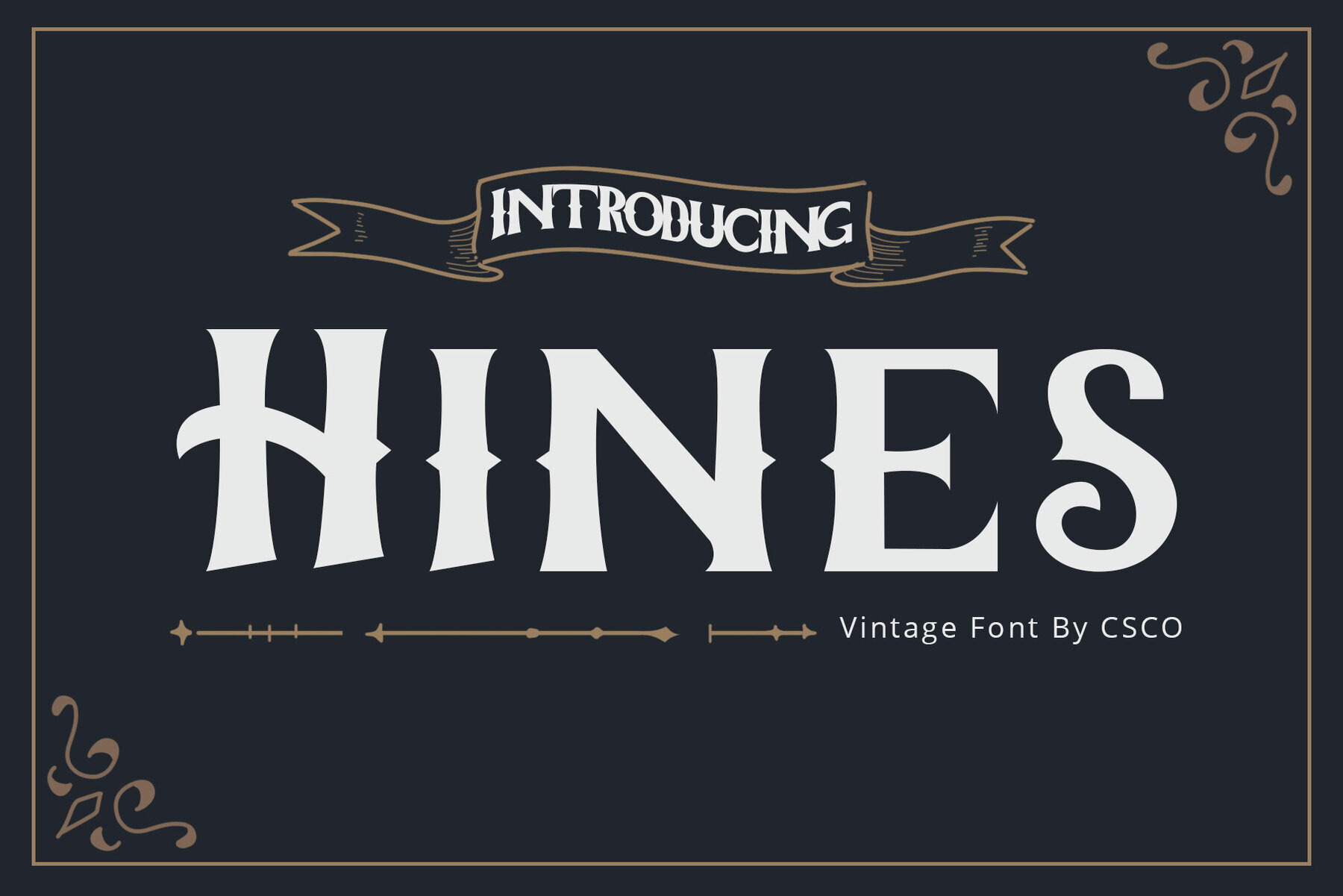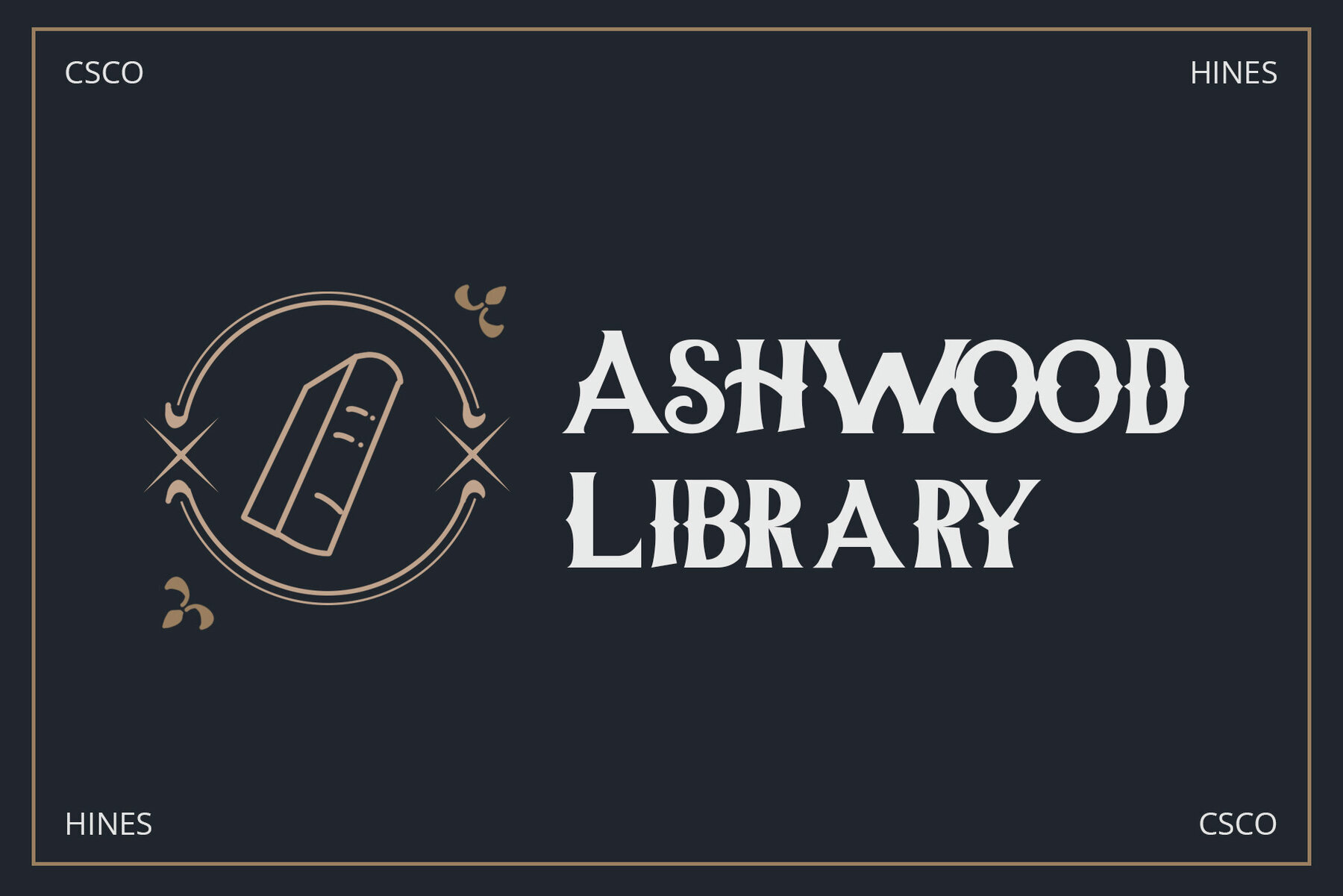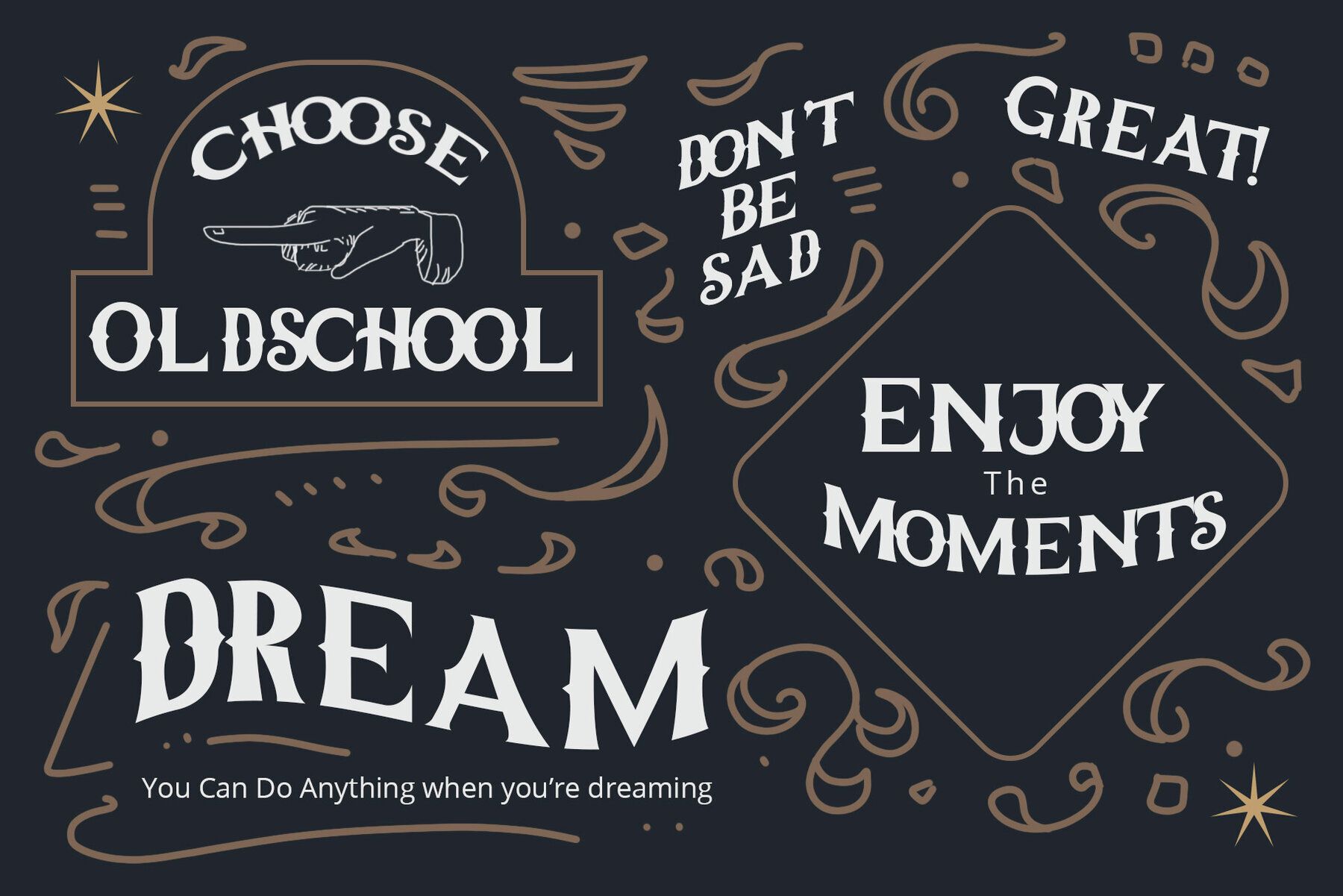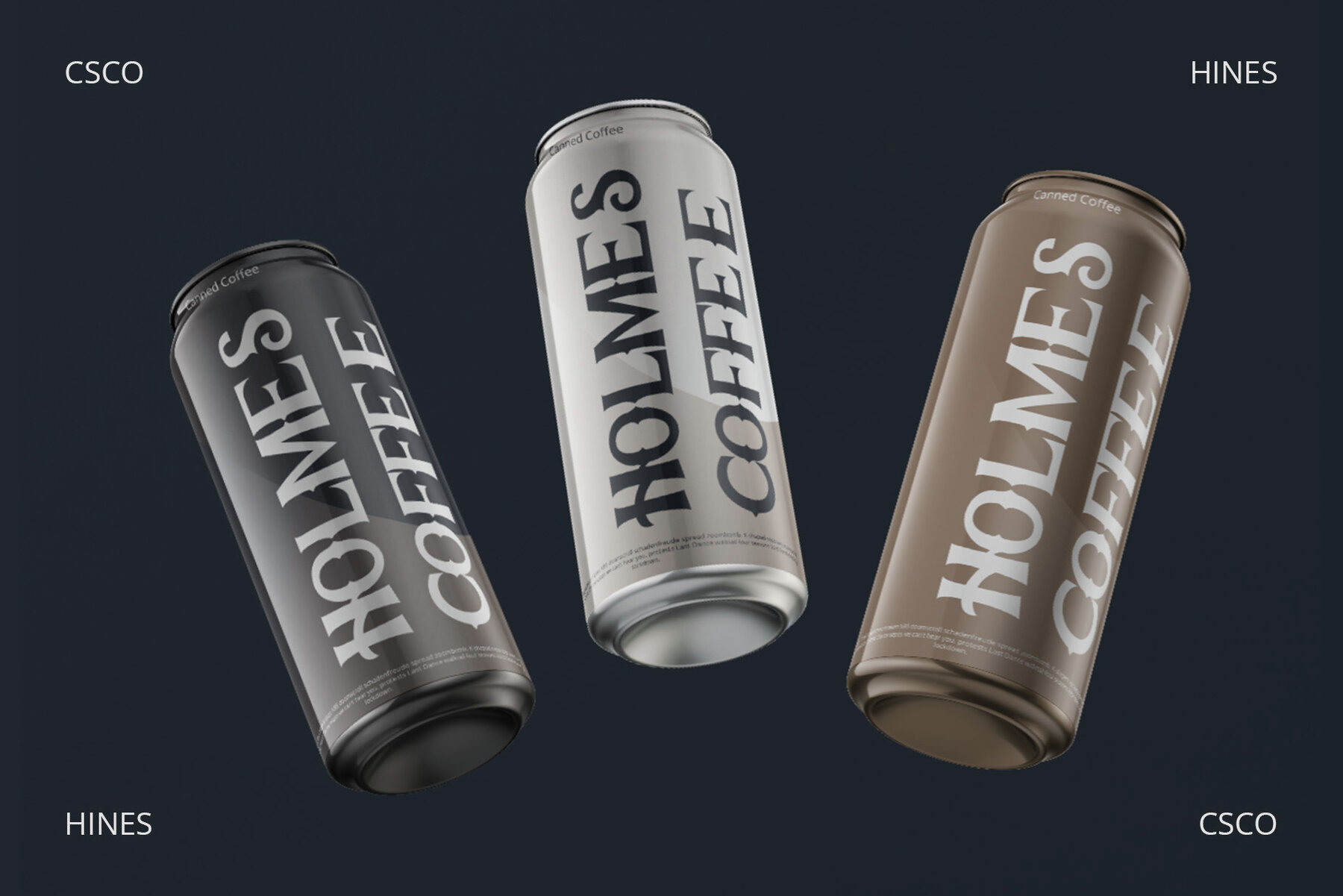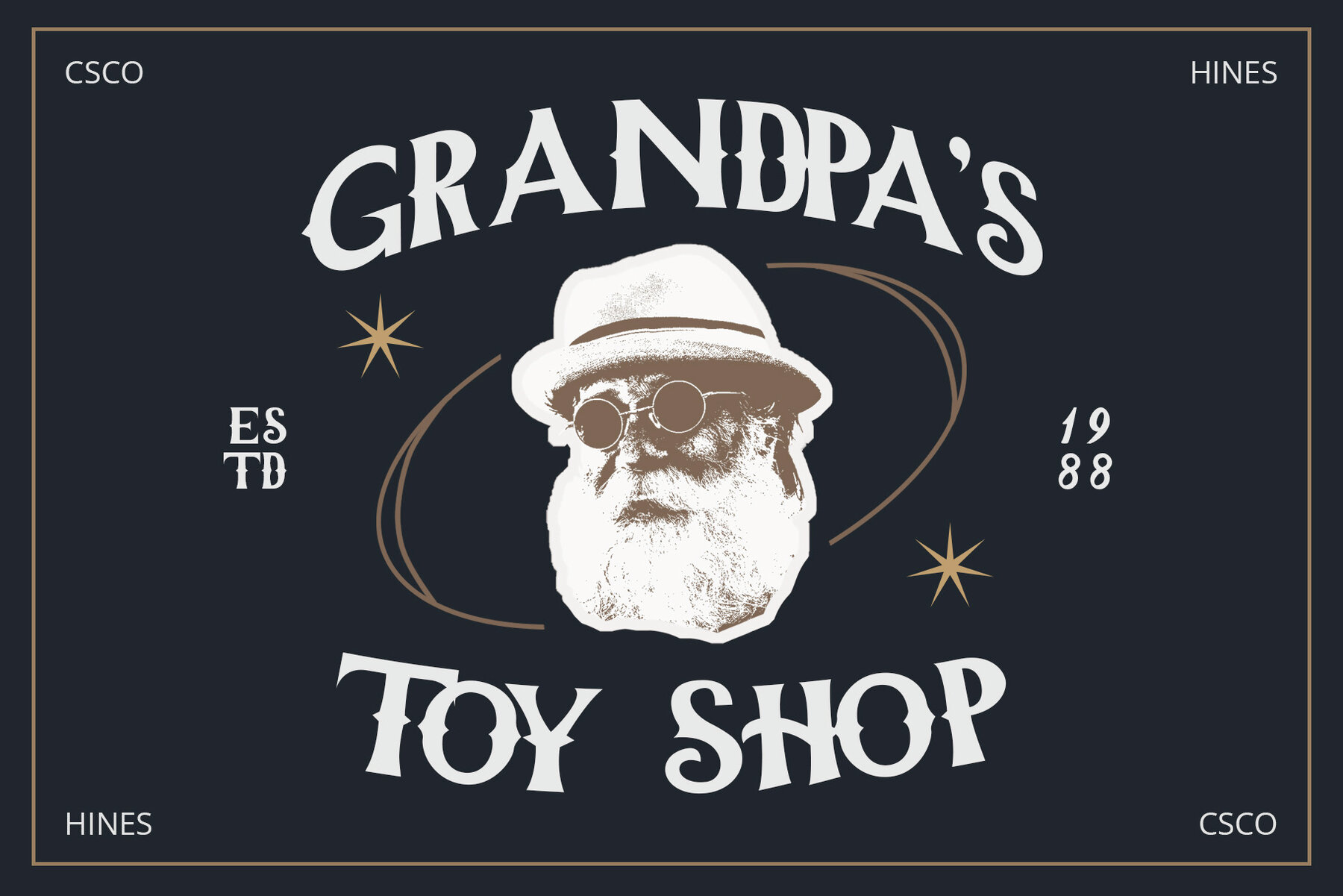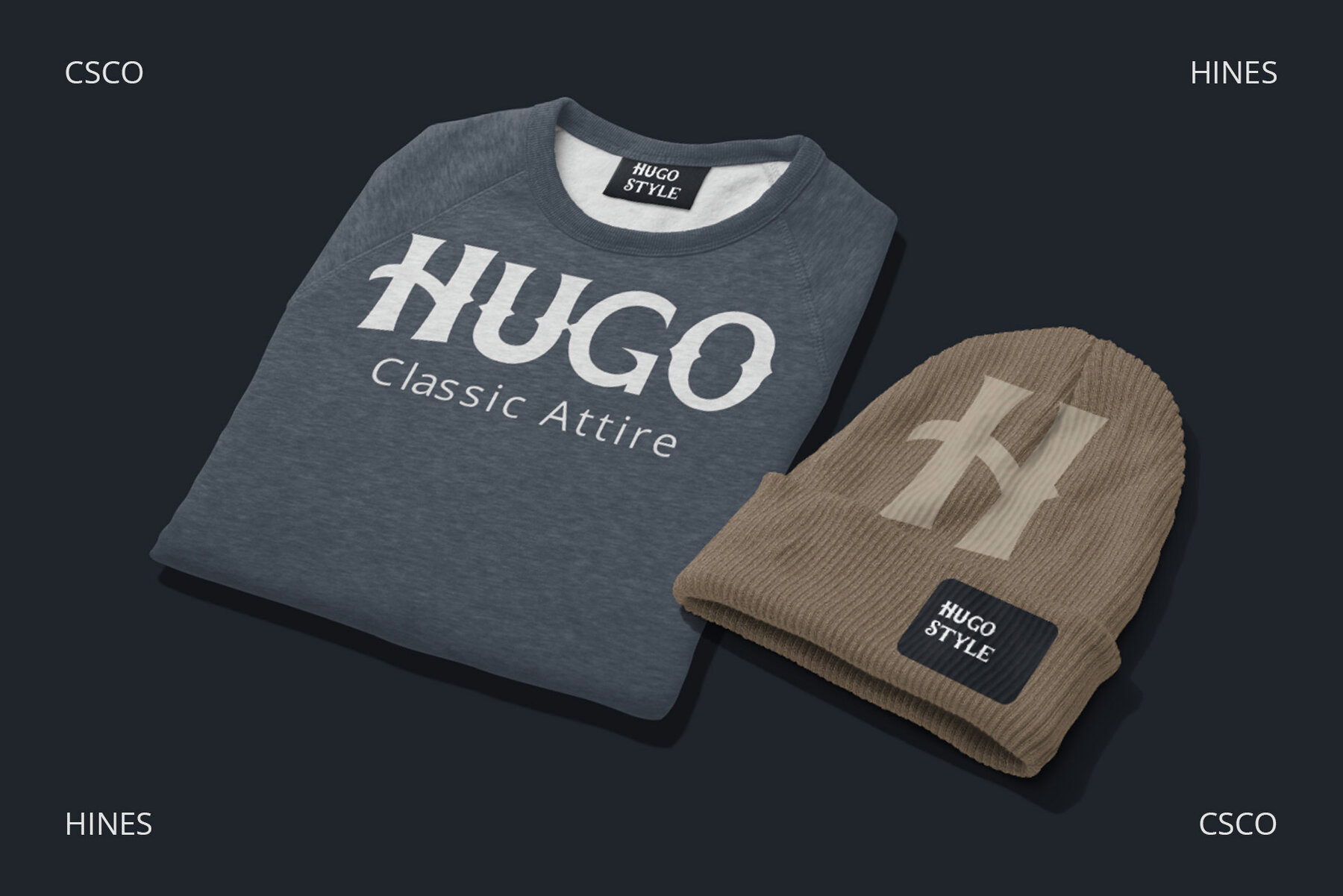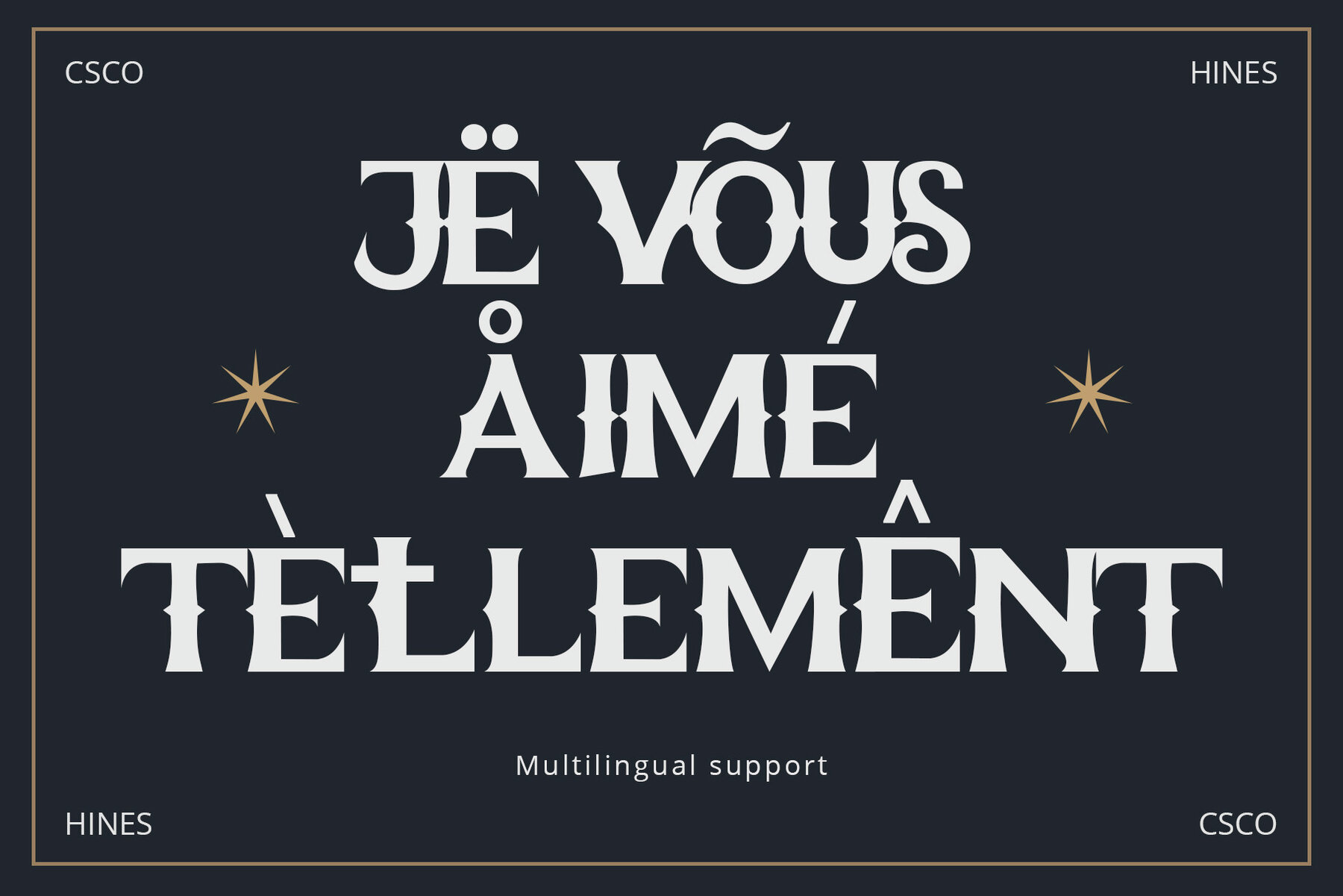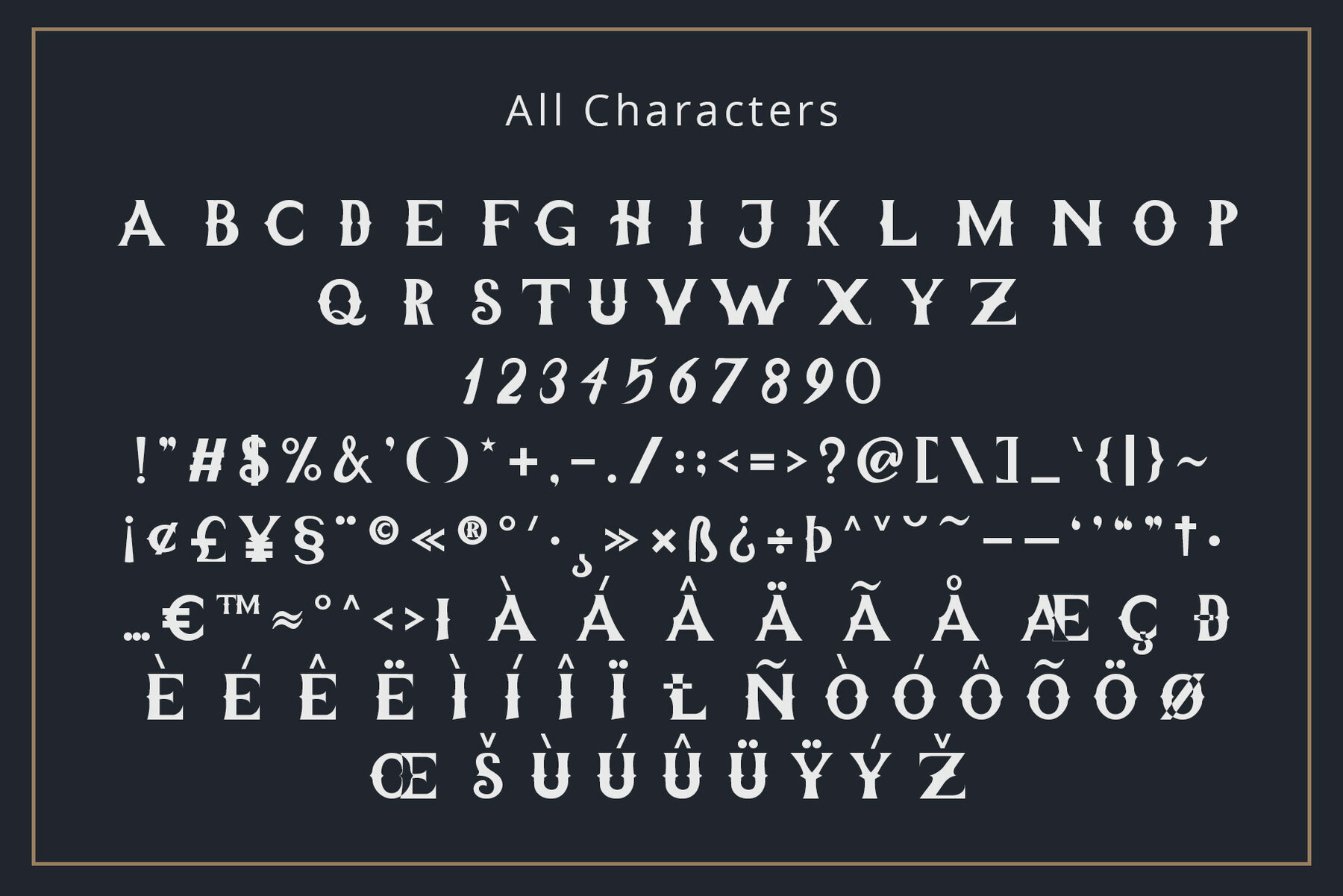
Hines Font
Hines Regular
The Hines font captures a vintage essence, designed specifically to resonate with robust themes found in custom motor cultures and similar domains.Hines: Vintage Font with a Masculine Nuance